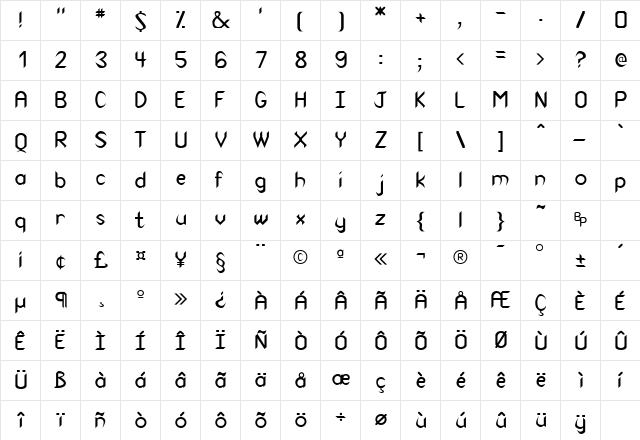
Canuth Regular
Design Context for Canuth Typeface
Canuth is a composed and adaptable typeface that performs quietly and consistently across a wide range of design contexts.